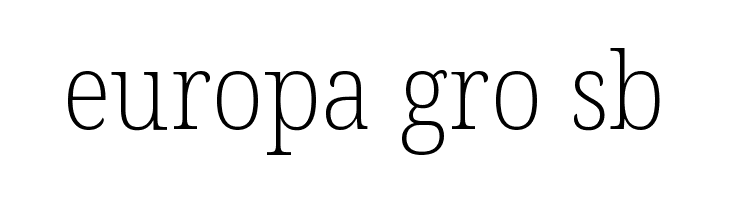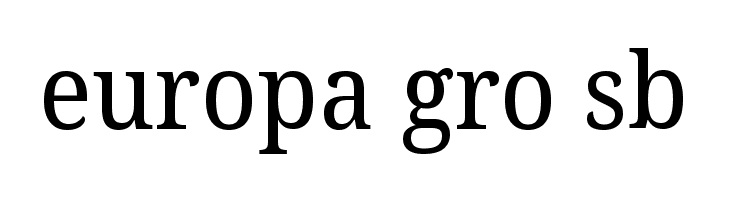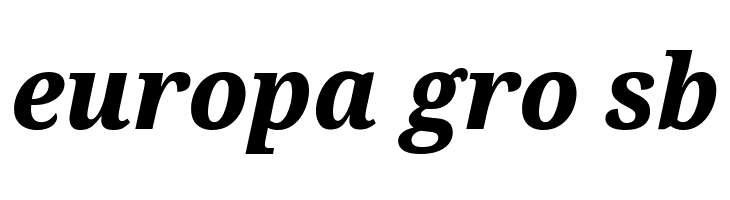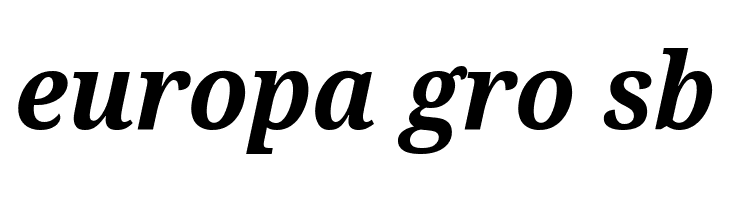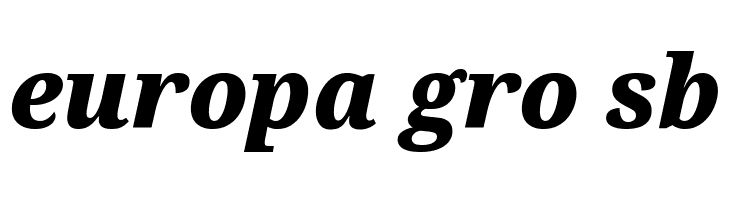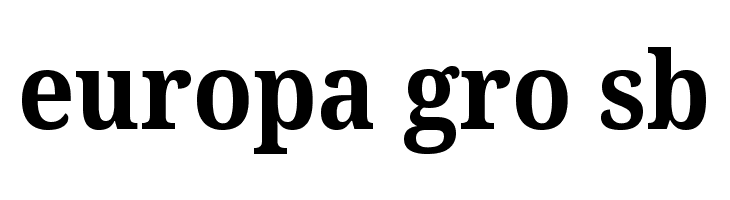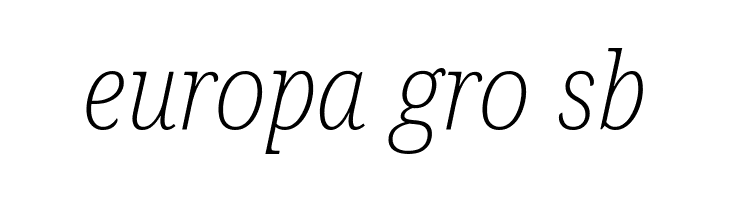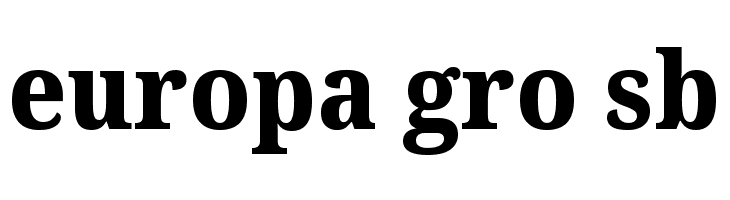
A classic serif font with semi-condensed proportions, offering elegance and readability.
A bold, semi-condensed serif typeface with high contrast and classic elegance.
A bold, semi-condensed serif font with high contrast and italic styling.
A bold, semi-condensed serif font with moderate contrast and classic styling.
A bold, semi-condensed serif font with italic styling and moderate contrast.
A classic serif typeface with a semi-condensed, extra bold style, perfect for impactful headlines.
A semi-condensed, extra bold italic serif typeface with a classic yet modern appeal.
A classic serif font with a semi-condensed, extra light style, offering elegance and readability.
A refined, semi-condensed, extra light italic serif font with high contrast.
A refined serif font with semi-condensed, italicized characters, offering elegance and readability.